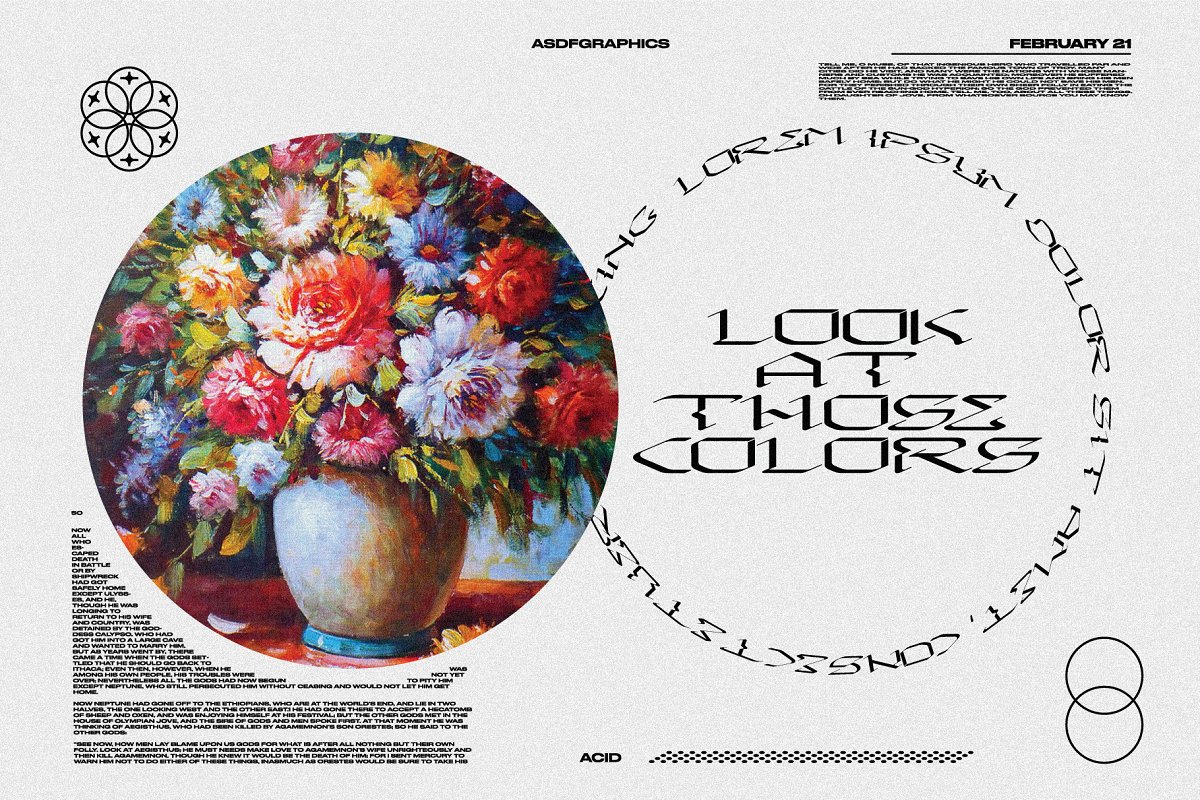
About the ACID FONT ACID GRAPHICS TYPOGRAPHY
ACID FONT – ACID GRAPHICS TYPOGRAPHY TECHNO RAVE 2022 Typeface, A Modern Calligraphic and Experimental Typeface, A contemporary hybrid of blackletter and serif, a metamodern grotesk retaining the elegance and style, Made for text display purposes, Acid Typeface brings a modern , gothic , sharp and strong impression to your design, With a bold acid style, suitable as the main text / header text on a poster , music artworks , website or layout design, t-shirt print, book cover etc best for large headlines, logos and any other large font compositions